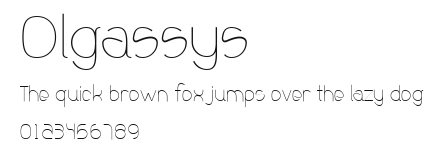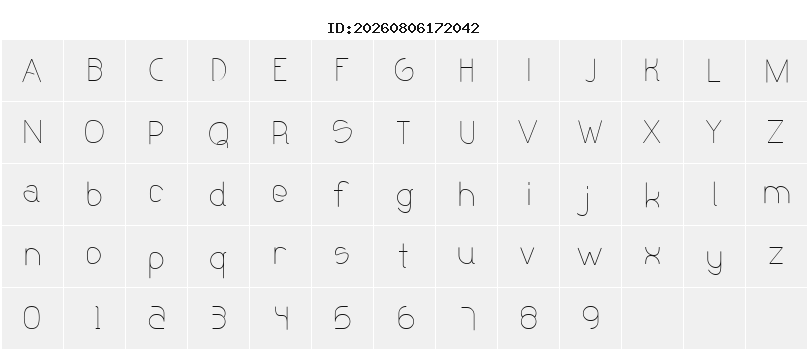
Olgassys Preview
• Font Name: Olgassys
• Font Style: Olgassys
• Full Font Name: Olgassys
• PostScript Name: Olgassys
• Designer: Emin Gökçeoğlu
• Manufacturer: Emin Gökçeoğlu
About Olgassys.ttf
Olgassys.ttf is a modern, elegant sans-serif font designed for ultimate readability and visual harmony. Perfect for branding, headlines, web design, and print materials.